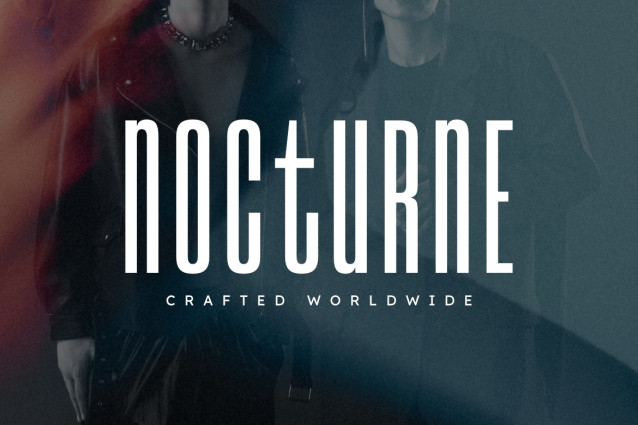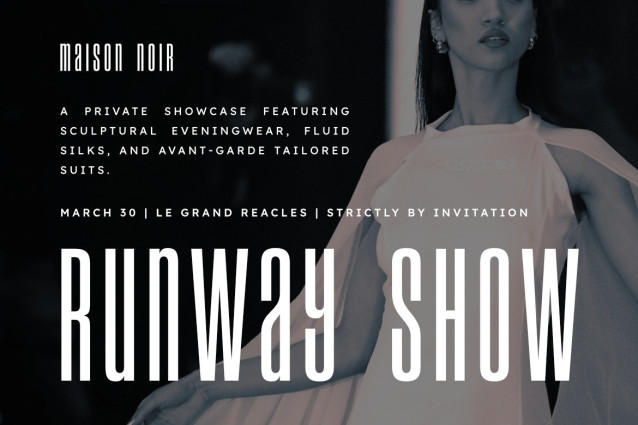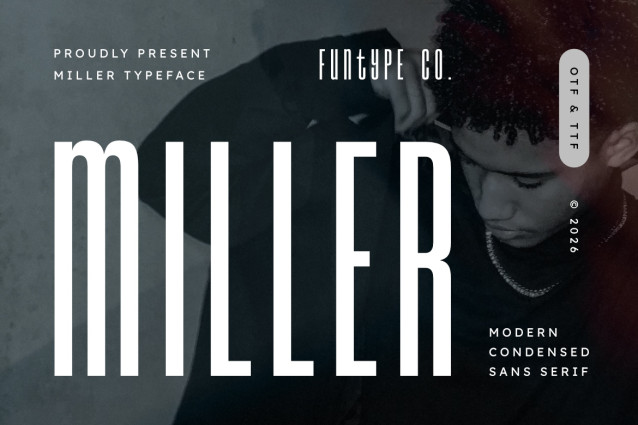
Miller is a sleek, ultra-tall, and modern condensed sans serif font, engineered to bring a commanding presence, space-saving geometric precision, and a sophisticated display aesthetic to contemporary graphic layouts. Featuring an elongated vertical profile, refined slim stems, and a subtle blend of rounded and sharp corners, Miller introduces a high-concept magazine editorial identity, bold corporate branding, architectural portfolio layout, and prominent digital media presentation designed to claim absolute visual focus.
This font family is the ultimate choice for creative directors, publication designers, and brand strategists looking to implement an authoritative typography identity for major text hierarchies. Whether you are developing bold corporate logotypes, luxury product packaging, high-fashion editorial headlines, cinematic movie title sequences, event posters, or prominent digital web banners, Miller stands out with supreme legibility and commanding structural elegance.